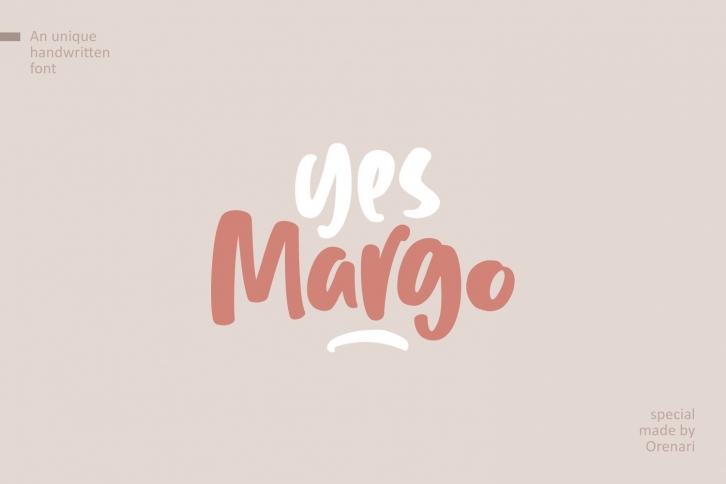
Yes Margo is a gorgeous font that was realeased on January 18, 2021. The font can be used in many style contexts and design environments. Perfect for invitations, magazines, websites, logos, and more! It was designed by Orenari and the file size is 14.74 MB. Thanks for checking out this font!